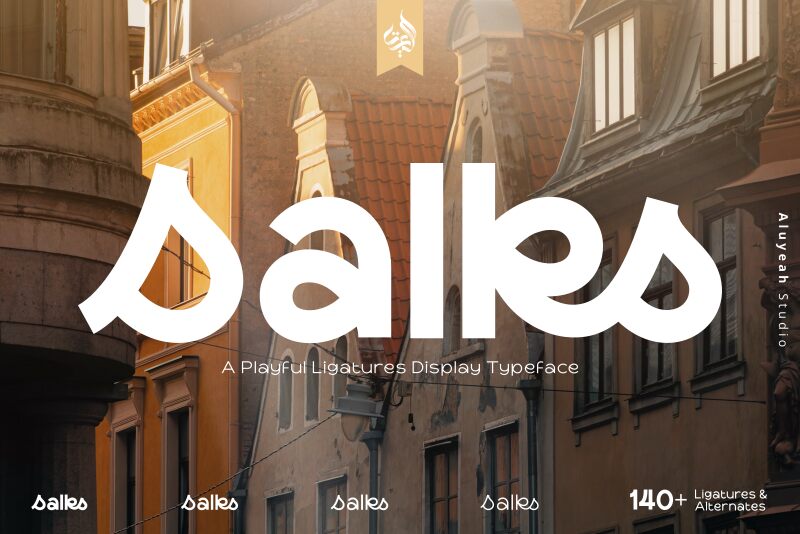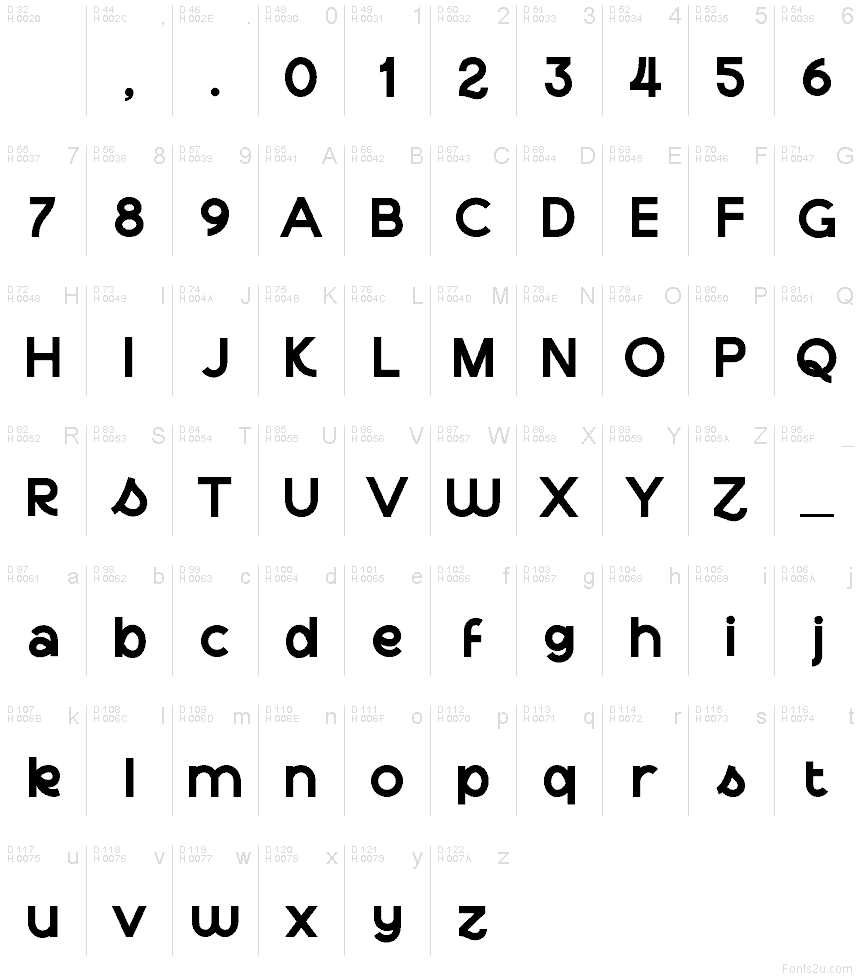
Salks
Introducing Salks, the Typeface That Brings Joy to Your Designs!
Salks is a playful and joyful display typeface that will add a touch of happiness to your creative projects.
With Salks' 140+ playful ligatures, four weight options, quick access features, and careful attention to detail, you'll have the perfect tool to instantly uplift any project and unlock unlimited creative possibilities. Experience the happiness that Salks brings to your creative world with this delightful display typeface that guarantees smiles all around.